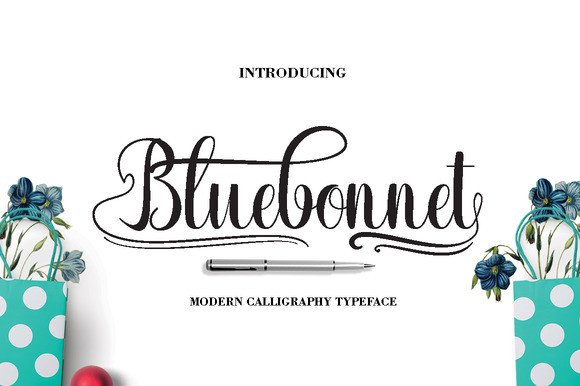
The Bluebonnet Font: A Charming Decorative Script for Your Design Needs
This charming decorative script font has been a game-changer for my designs, and I’m excited to share its beauty with you. Whether you’re a designer, crafter, or creative hobbyist, Bluebonnet is sure to become a favorite in your font collection.
An Honest Review of Bluebonnet Font
What I Love About Bluebonnet ✨
- 💫 Gorgeous flourishes and ligatures that add an extra touch of elegance to any design
- ✅ Easy to read and understand, even in smaller sizes
- 🎨 Highly versatile and can be used in a variety of design applications, from wedding invitations to branding and packaging
- 👍 Well-suited for both digital and print designs
- ⚠️ Some of the flourishes and ligatures can be a bit finicky to work with, especially for beginners
- ⚠️ Not the best choice for body text or long blocks of text, as it can be a bit too ornate
The Backstory of Bluebonnet Font
Bluebonnet font was designed by a talented type designer who was inspired by the beauty of the Texas bluebonnet flower. The designer wanted to create a font that captured the elegance and charm of this iconic flower, and the result is a beautiful and versatile script font that’s perfect for a variety of design applications.
Q: What is the Bluebonnet font best used for?
A: Bluebonnet font is best used for designs that need a touch of elegance and sophistication, such as wedding invitations, luxury branding, and high-end packaging.
Q: Is Bluebonnet font suitable for body text?
A: No, Bluebonnet font is not the best choice for body text or long blocks of text, as it can be a bit too ornate and difficult to read.